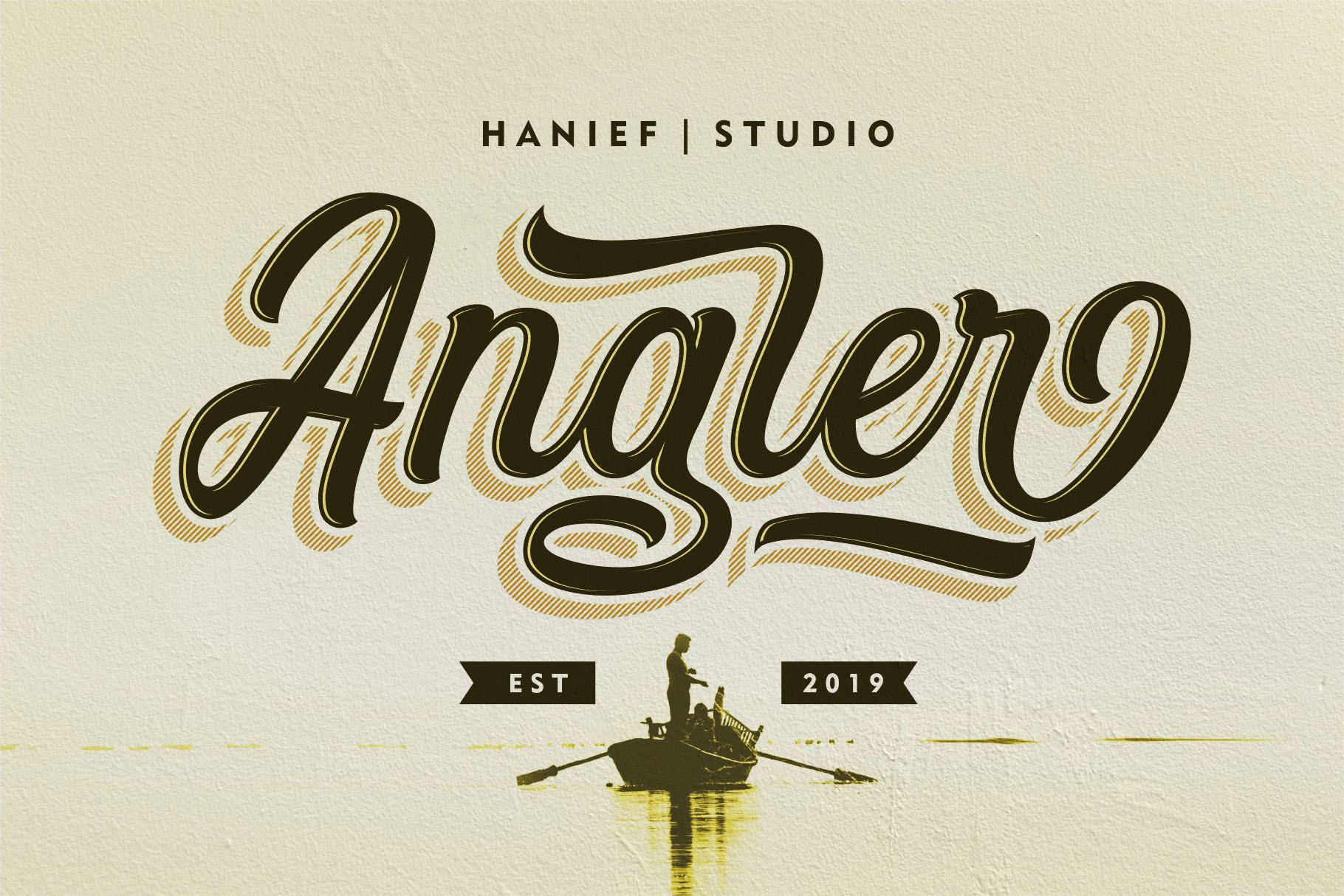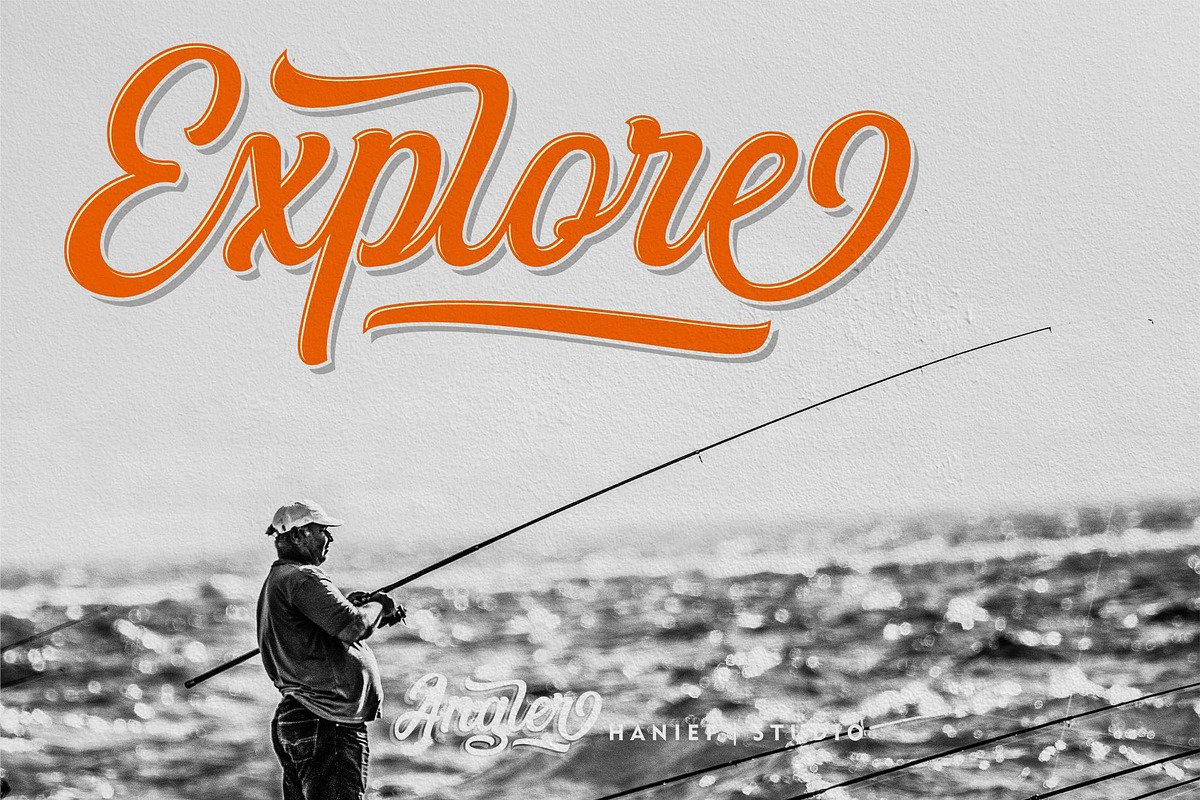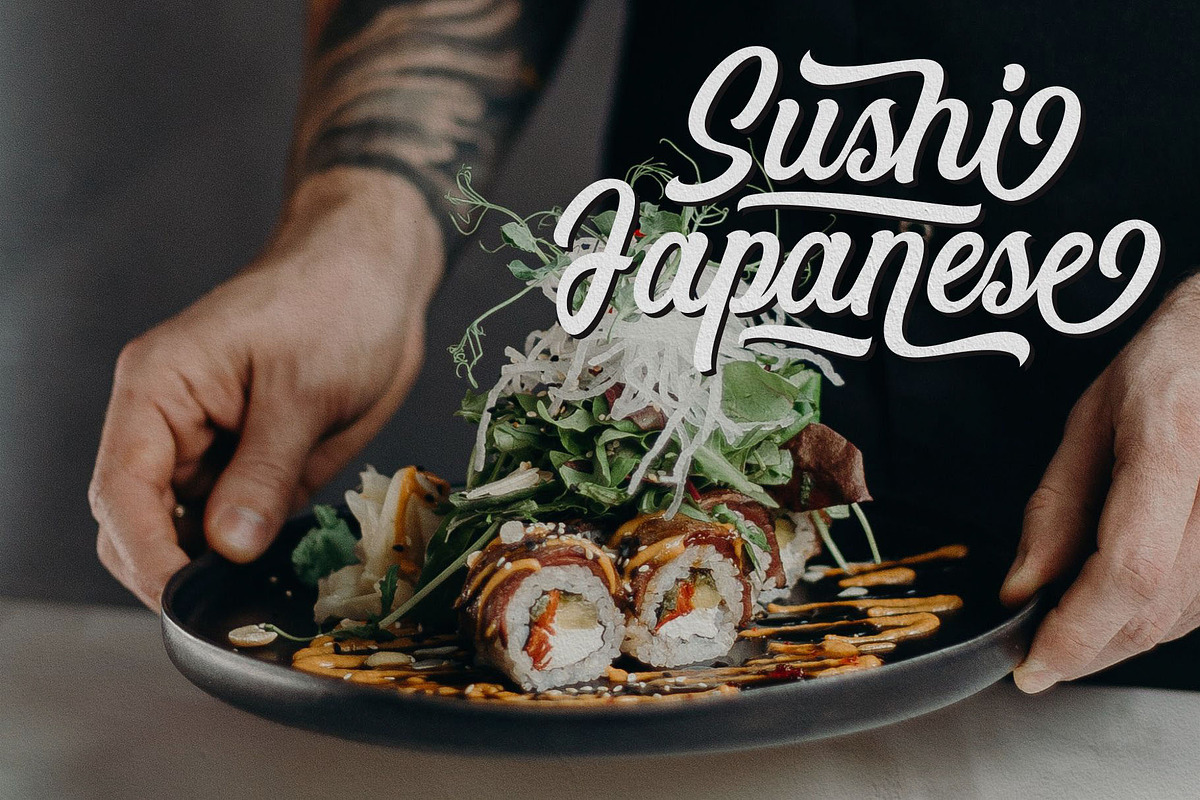
Angler Inspired by contemporary fashion and streetwear and combination with Hand Lettering style. I'm made with touch personality every single curve. I hope this can inspire you from your work. and a very bouncy baseline It has a perfectly paired complimentary marker font. Ideal for logos, handwritten quotes, product packaging, headers, posters, merchandise, social media & greeting cards.
- Stylistic Set